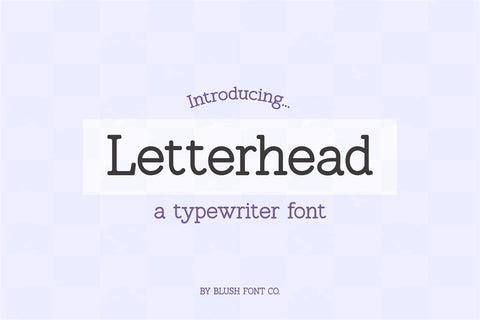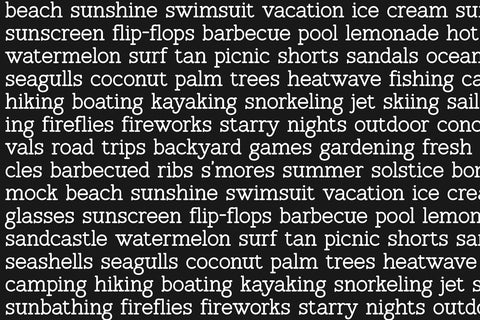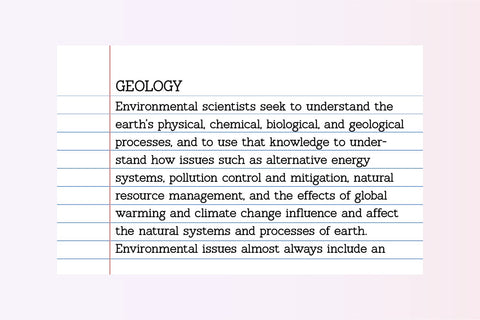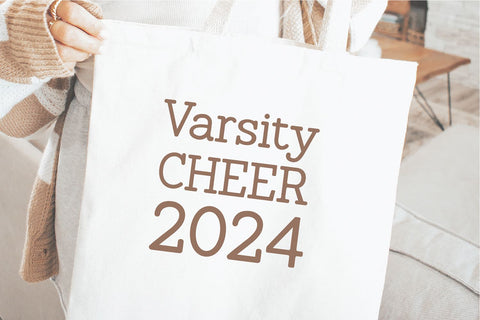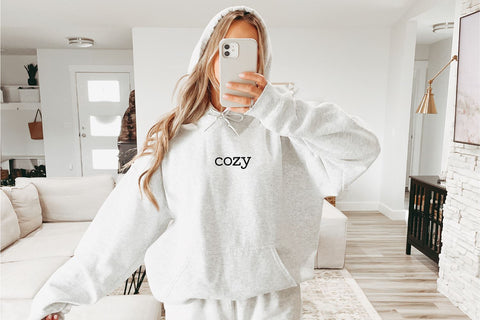
Letterhead Typewriter Handwriting Font
"Letterhead" typewriter handwriting font.
Letterhead is a typewriter handwriting font that is perfect for social media or crafty projects. Use it for branding, crafts for decor, invitations, and more! This font includes upper and lowercase glyphs, numbers, basic punctuation marks, and intl characters!